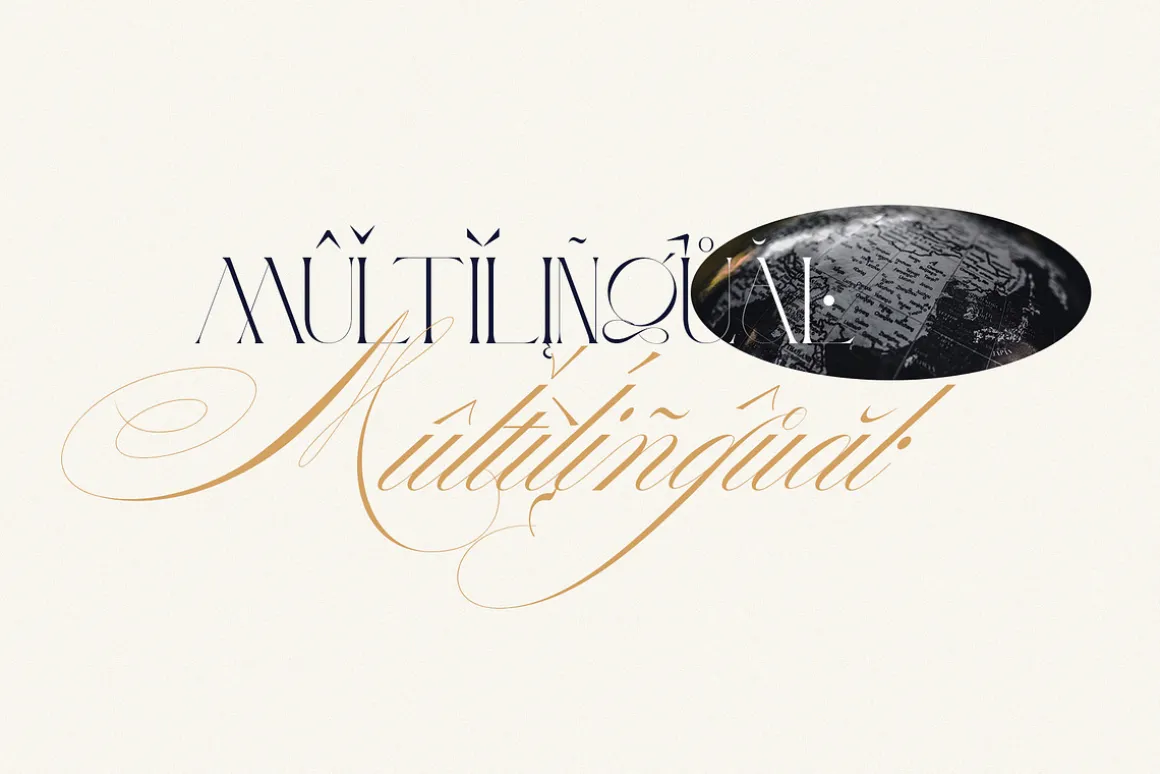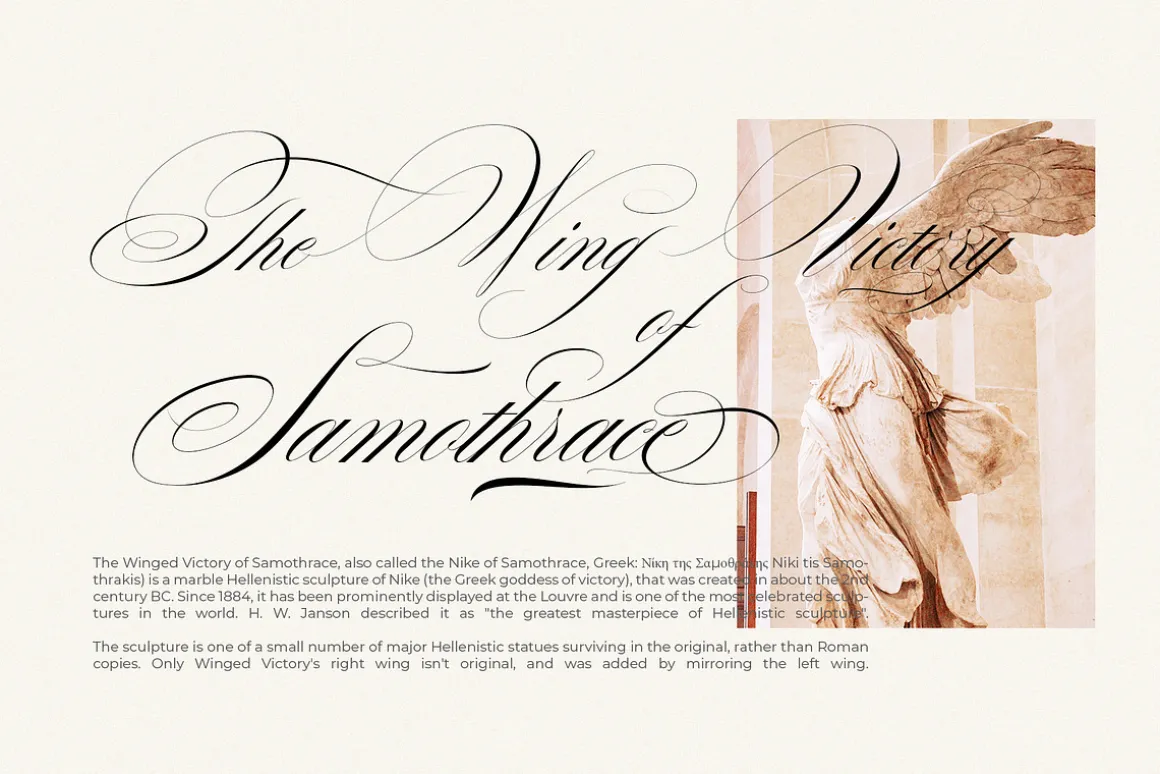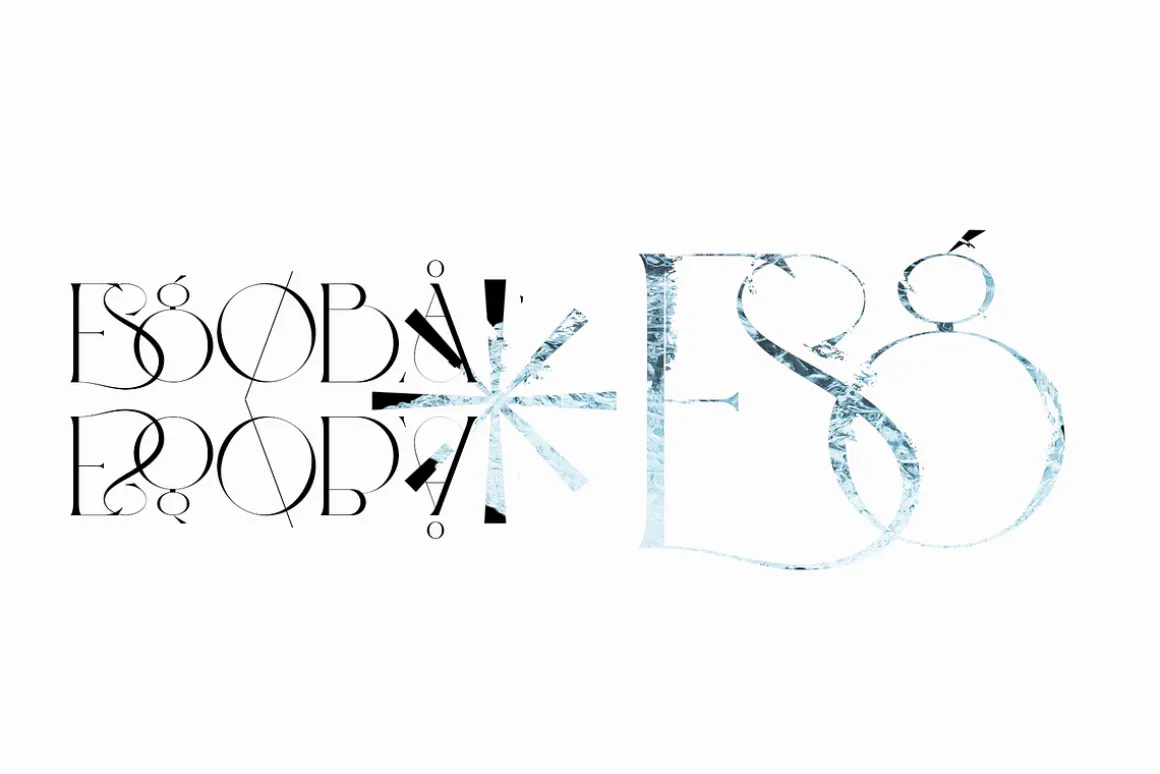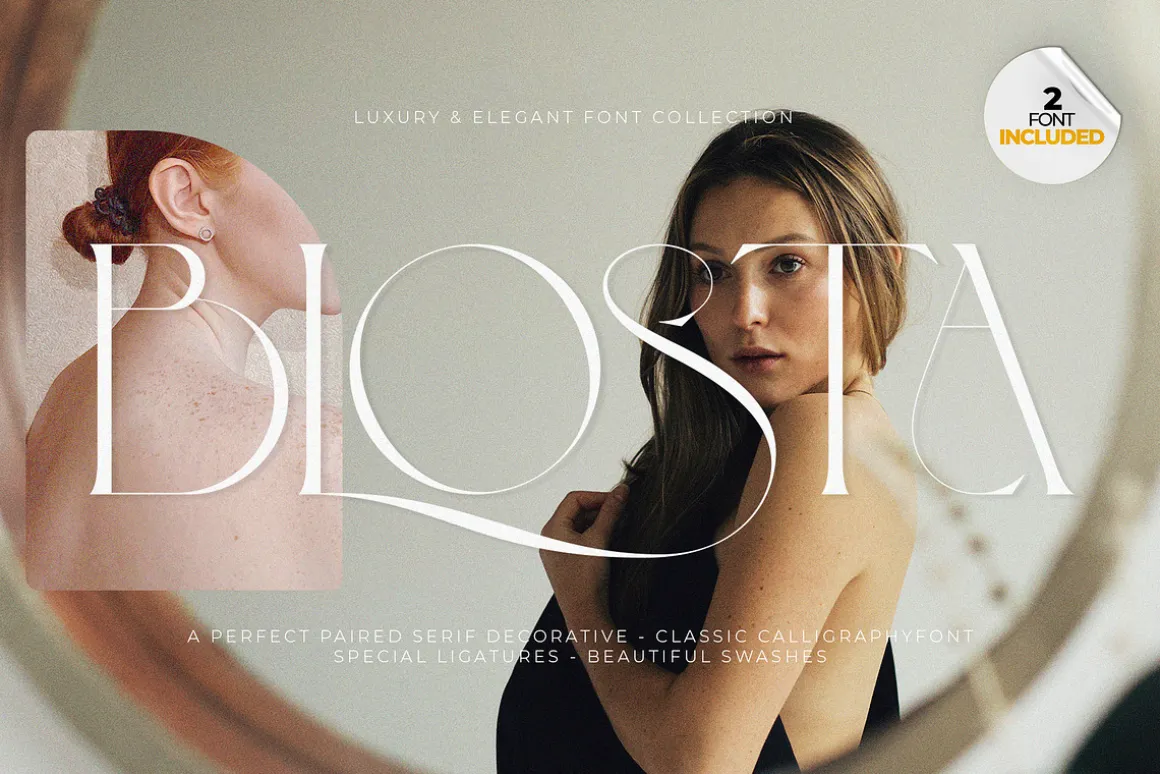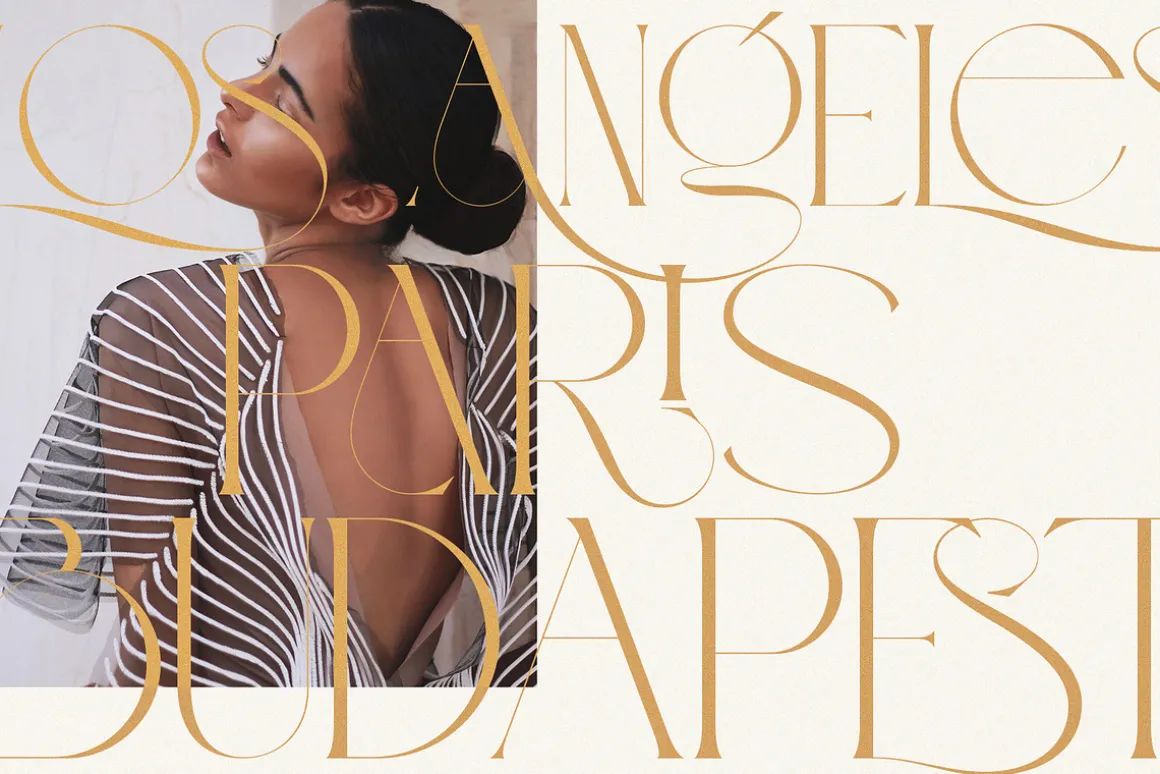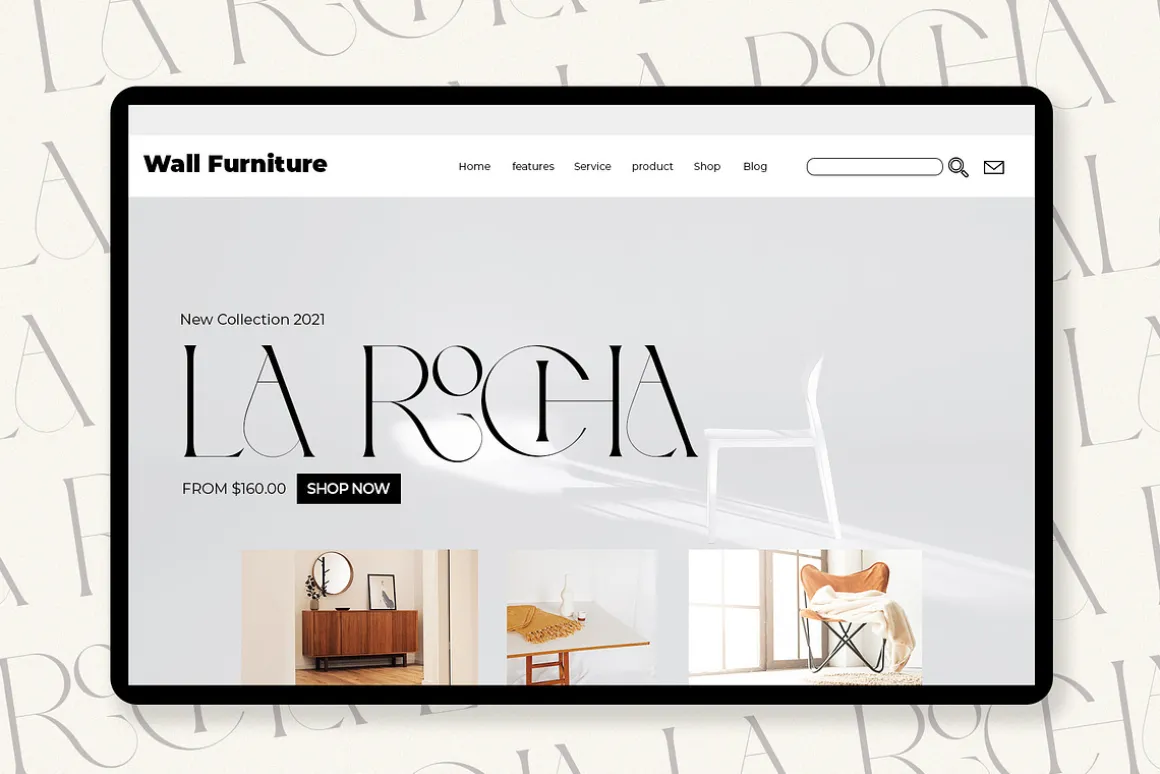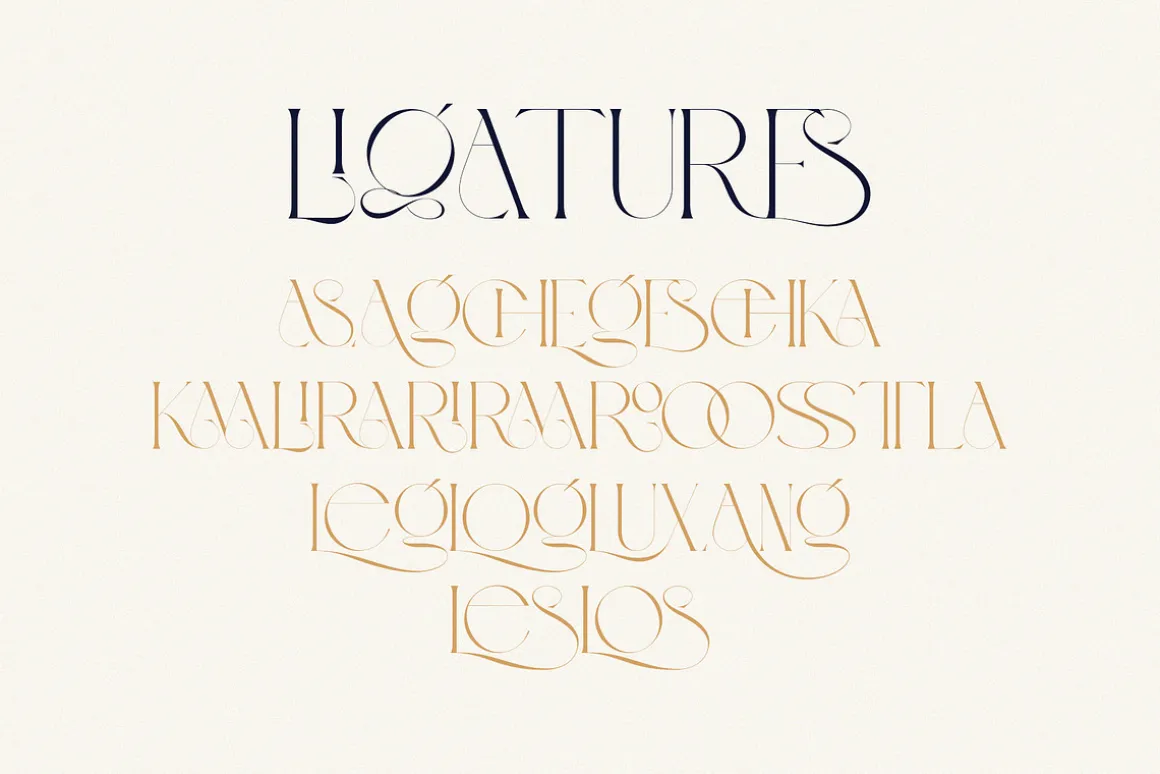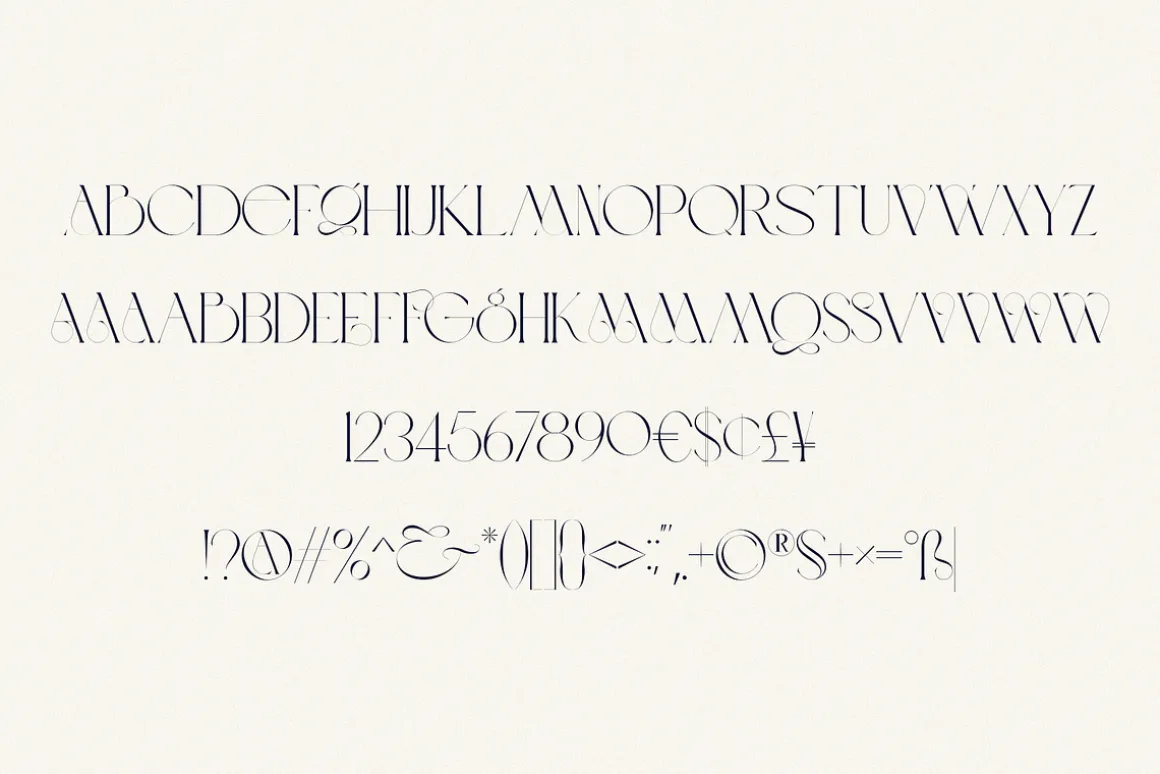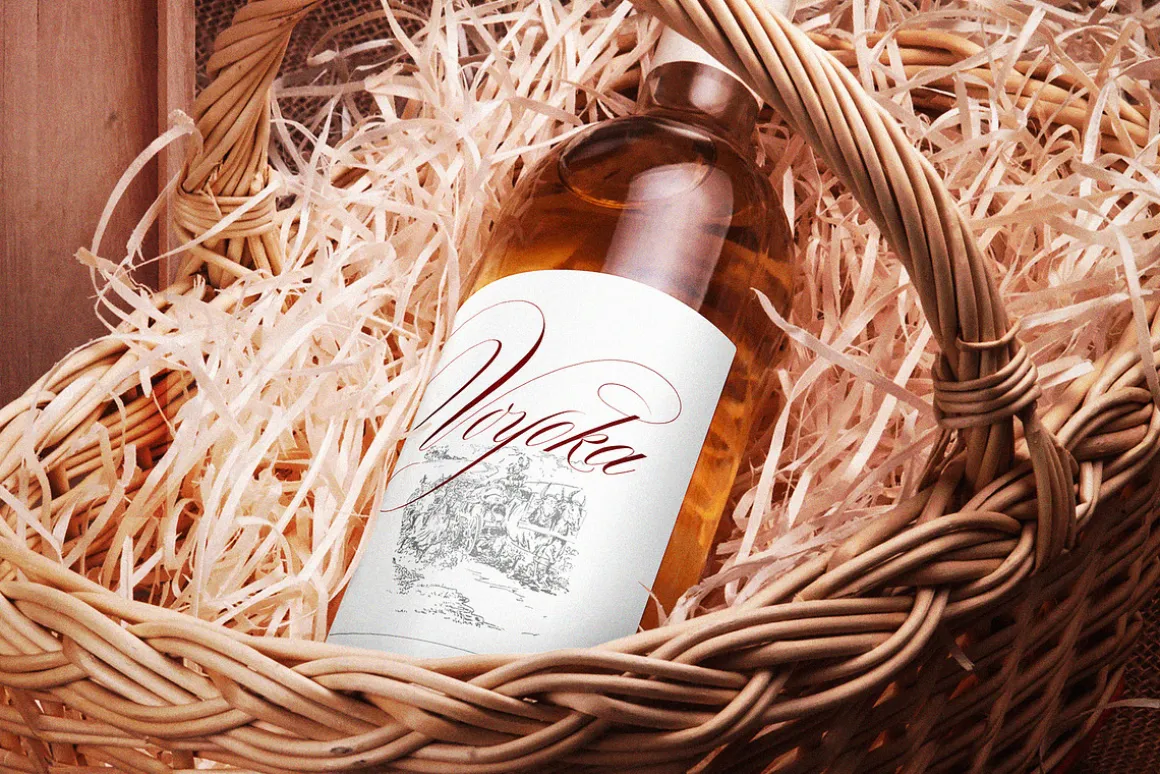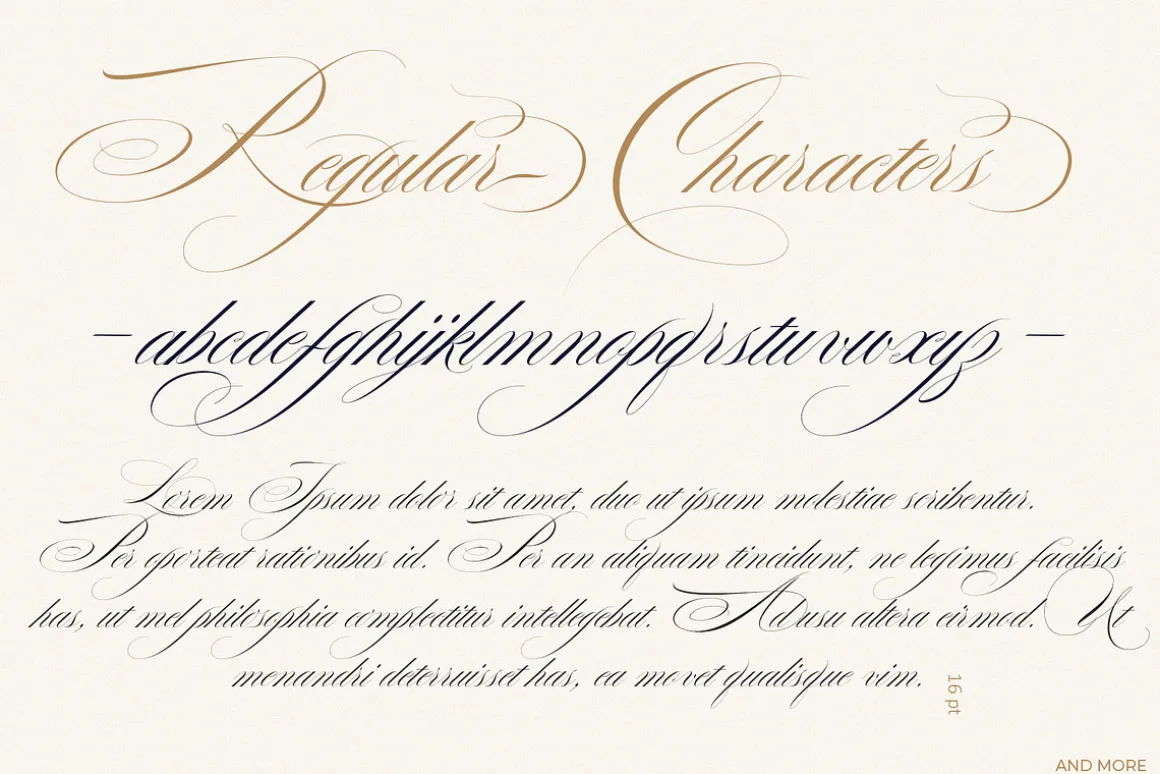
Blosta Font Duo is a luxury and elegant font pair that will bring a unique style and a trendy look to your designs.
Comes with Serif Decorative and Calligraphy Typeface with trending ligatures and special character, this will make Blosta Font Duo usable in all design projects and work perfectly to pair with any other font.
With duo styles you can create design such as wedding media, book covers, greeting cards, logos, branding, business cards and certificates, even for any design work that requires a classic, formal or luxurious look.
Try Blosta, Enjoy the richness of OpenType features and let her fun and elegant excitement make you happy and enhance your creativity! You can use this font very easily.
• Multilingual Support